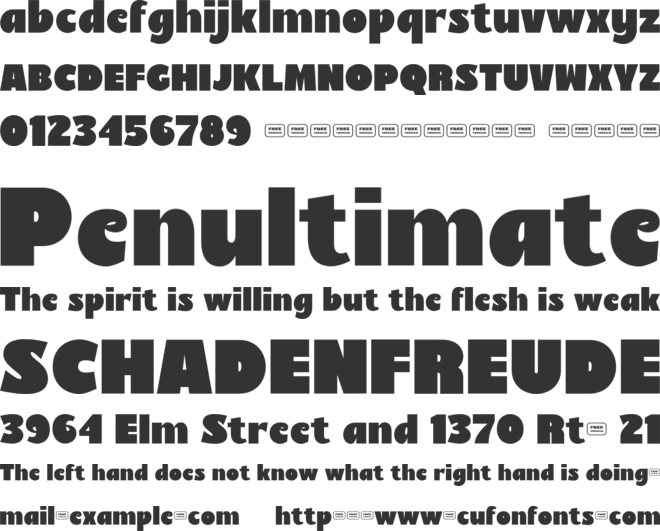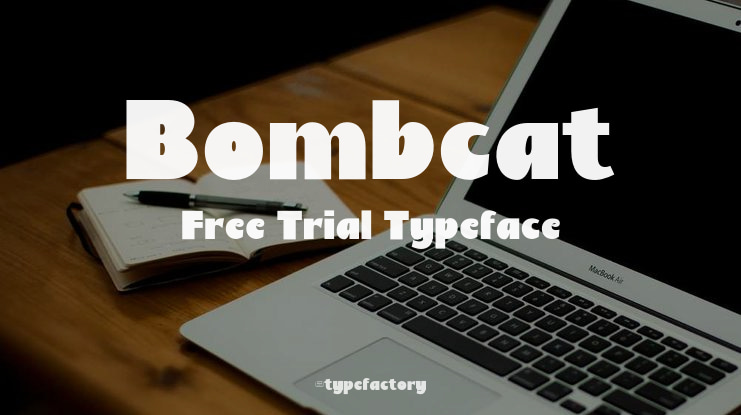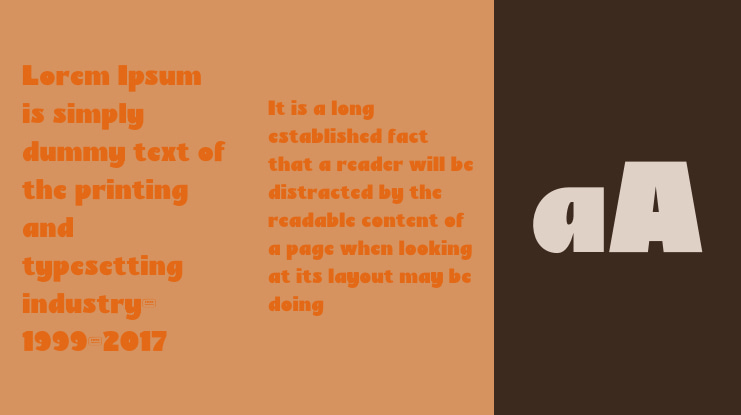
Bombcat Free Trial Font
Bombcat Display is an explosive, heavy-weight typeface crafted to make a bold impact. With its ultra-fat letterforms and powerful presence, Bombcat is the perfect choice for headlines, posters, video game titles, merchandise, and any design that demands maximum visual weight.
Inspired by retro action themes and modern display trends, this typeface brings a dramatic punch to your typography. Whether you're designing for cinematic posters, sports branding, or streetwear logos, Bombcat guarantees attention with its unapologetically thick curves and strong attitude.
Perfect For:
- Posters and flyers
- YouTube and Twitch thumbnails
- Sports, esports, or urban designs
- Bold branding and logos
- Movie or action-themed titles